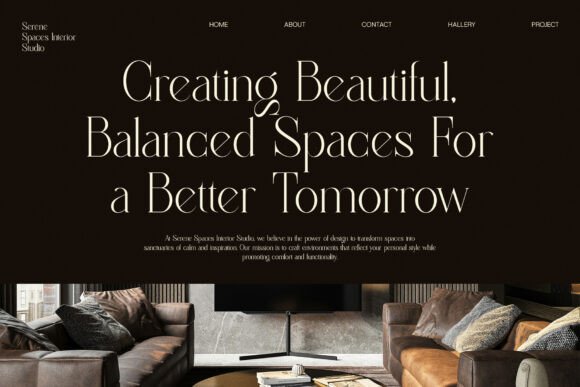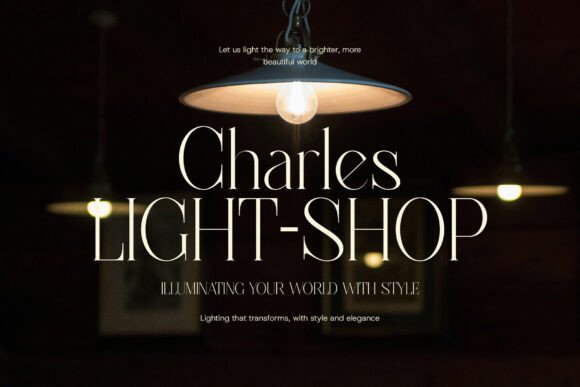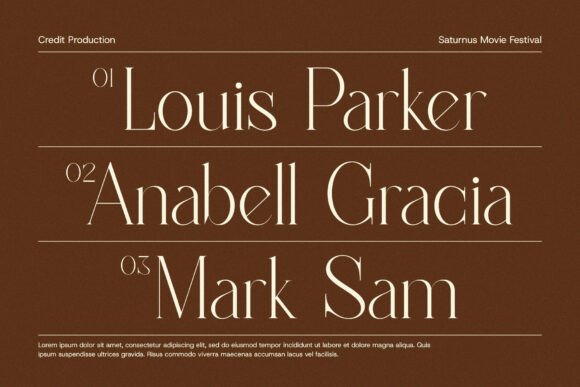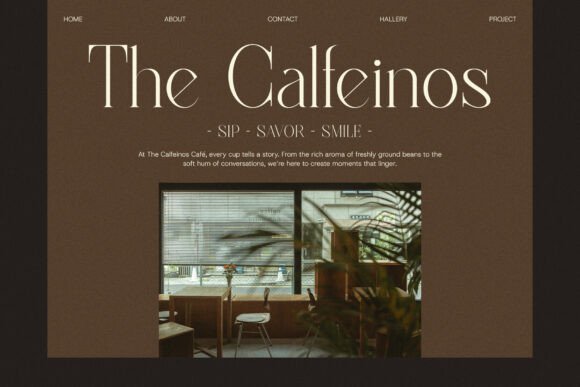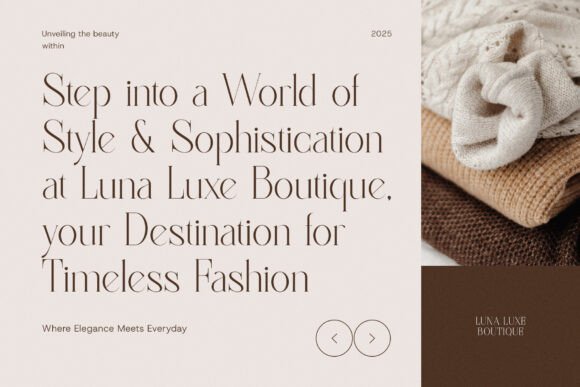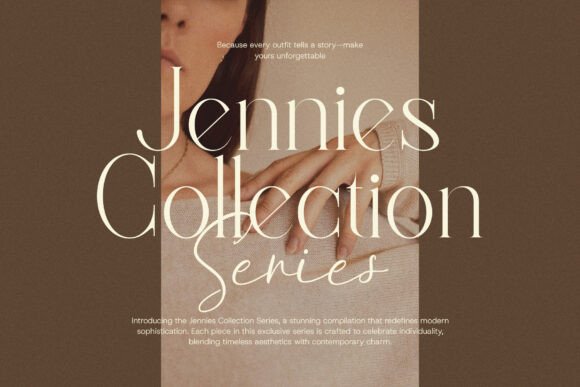
The Elegance of Flogst Font: A Designer’s New Best Friend
I still remember the design project that led me to discover Flogst Font. I was working on a luxury branding campaign for a high-end fashion label, and I was struggling to find the perfect font that exuded sophistication and elegance. The client wanted a font that would make their brand stand out, but still convey a sense of timelessness. After hours of searching, I stumbled upon Flogst Font, and it was love at first sight. ✨
An Honest Review of Flogst Font
- ✨ Smooth curves and sharp serifs that give it a refined and modern look
- ✅ High-contrast strokes that add visual impact and elegance
- ✅ Beautifully crafted ligatures and stylish alternates that allow for creative typography
- ✅ Effortless readability, even at small font sizes
While Flogst Font is an amazing typeface, it’s not perfect. Here are a few things to keep in mind:
- ⚠️ The font can be a bit overused in some design circles, so use it judiciously to avoid clichés
- 🤔 Some users may find the font a bit too ornate for certain design projects
A Practical Guide to Using Flogst Font
The Story Behind Flogst Font
Flogst Font was designed by a team of typographers who wanted to create a font that would exude elegance and sophistication. The font’s design is inspired by classic serif fonts, but with a modern twist. The team spent countless hours refining the font’s curves and serifs to create a truly unique and refined typeface.
| Font Name | Flogst Font |
| Author | Graphicxell |
| What is Flogst Font? | Flogst Font is a refined and modern serif typeface that exudes elegance and sophistication. |
| Is Flogst Font suitable for body text? | While Flogst Font is elegant and refined, it’s best suited for headlines and titles. For body text, consider a font with better readability. |
| Is Flogst Font available in different weights and styles? | Yes, Flogst Font comes in several weights and styles, including regular, italic, bold, and bold italic. |